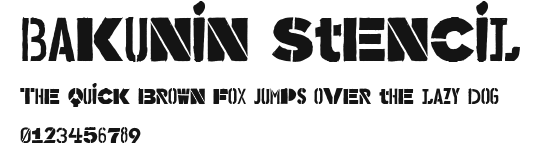
• Font Name: Bakunin Stencil
• Designer: Doğukan Karapınar
Bakunin Stencil.ttf is a modern, elegant sans-serif font designed for ultimate readability and visual harmony. Perfect for branding, headlines, web design, and print materials.